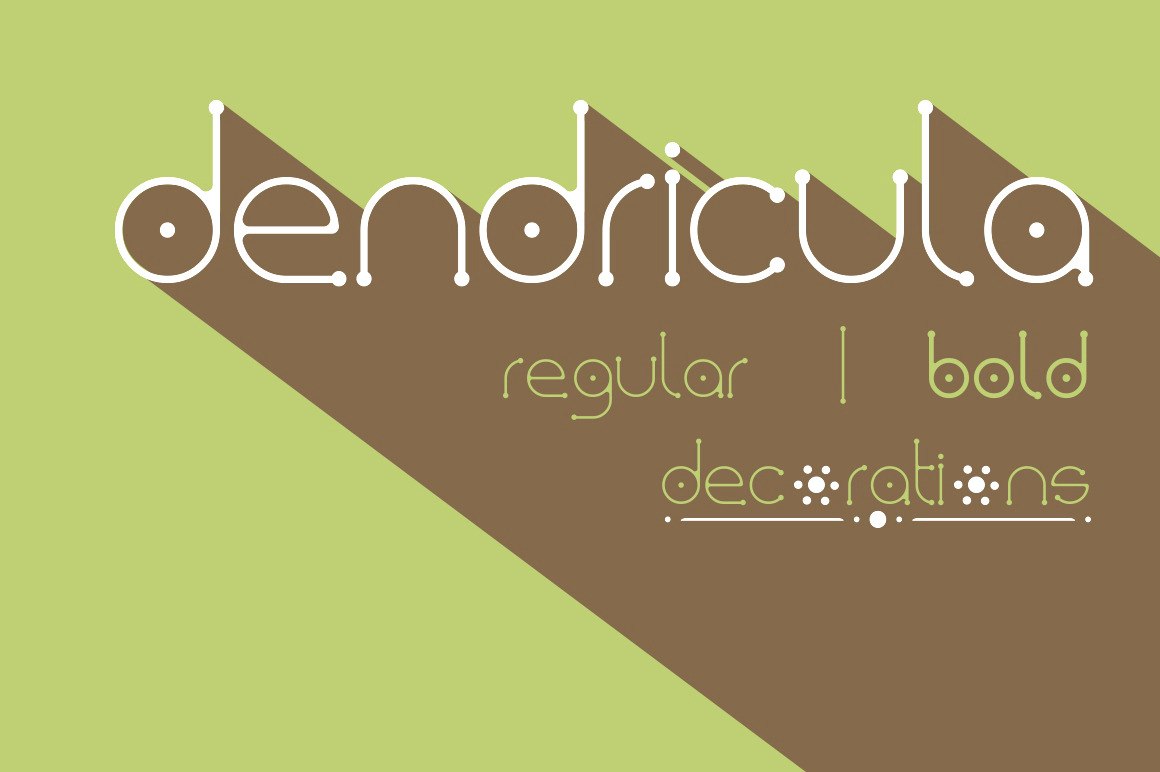
Dendricula Typeface
Dendricula is a contemporary typeface, inspired from the botanical wolrd, ideal for decorative expressive designs like covers, logos, titles & many more.
It comes in regular and bold weights with 118 glyphs and also includes 18 decorations.